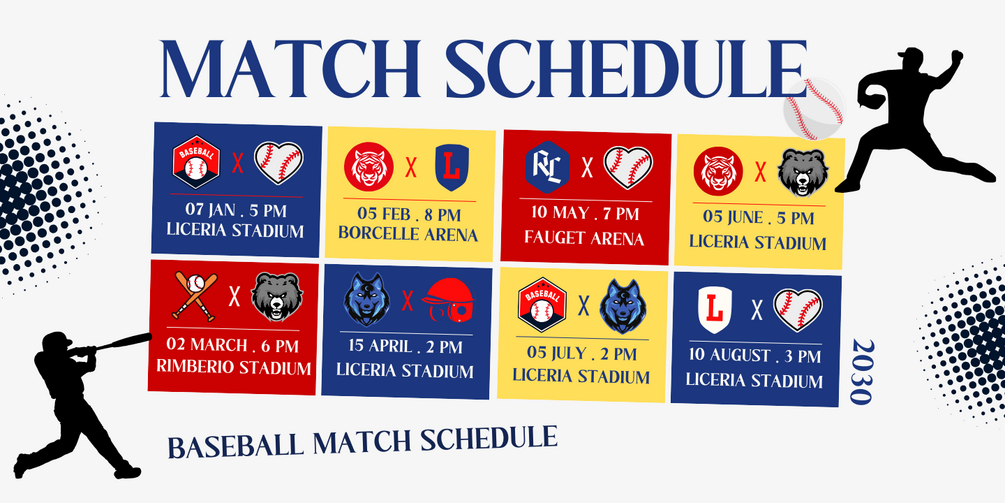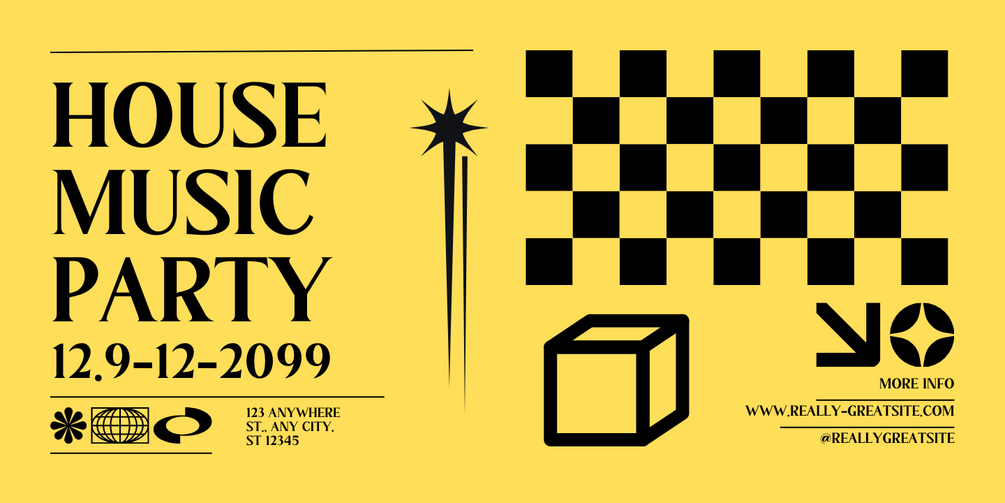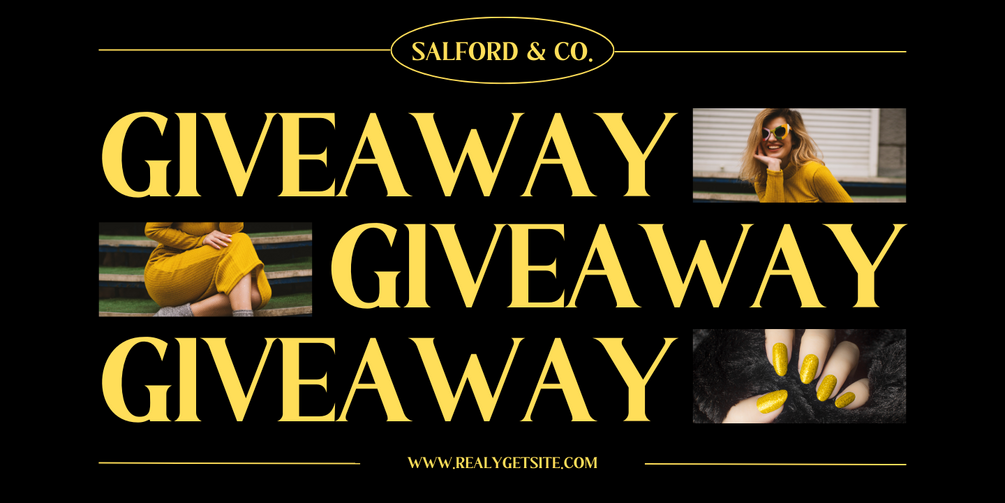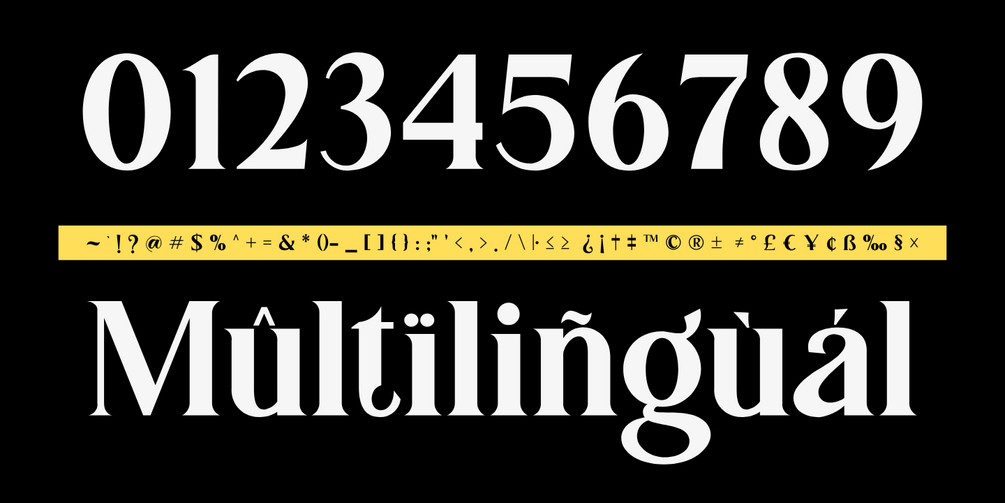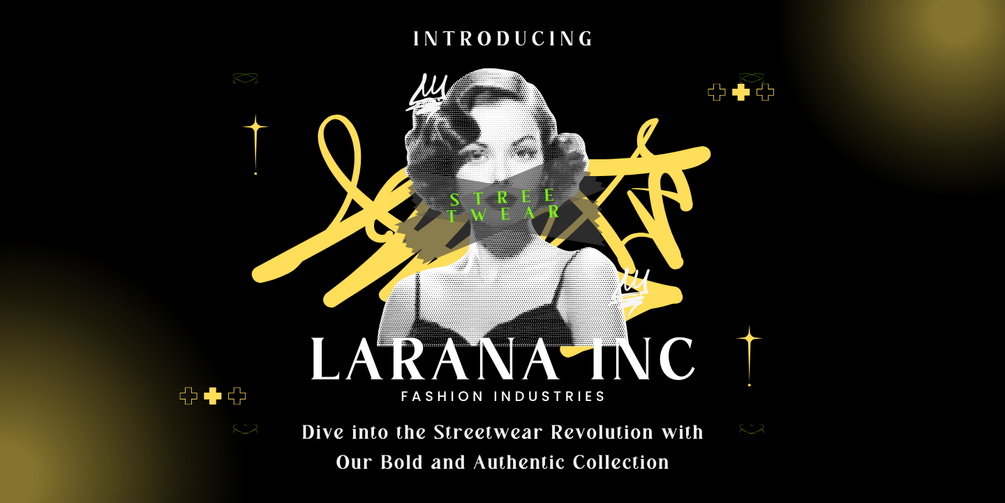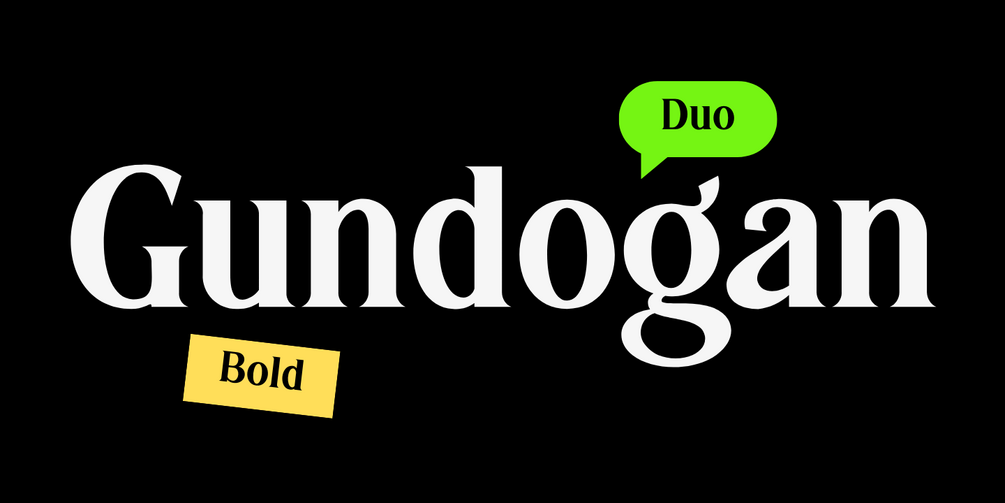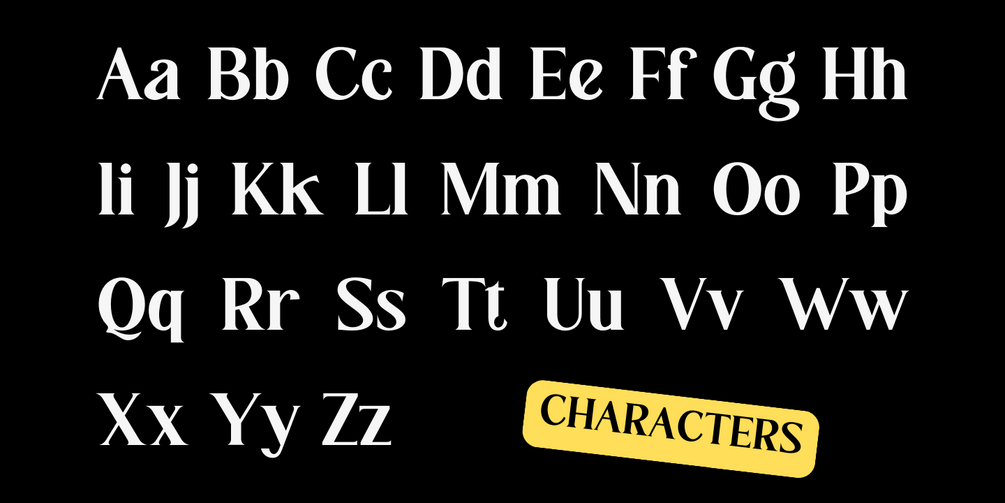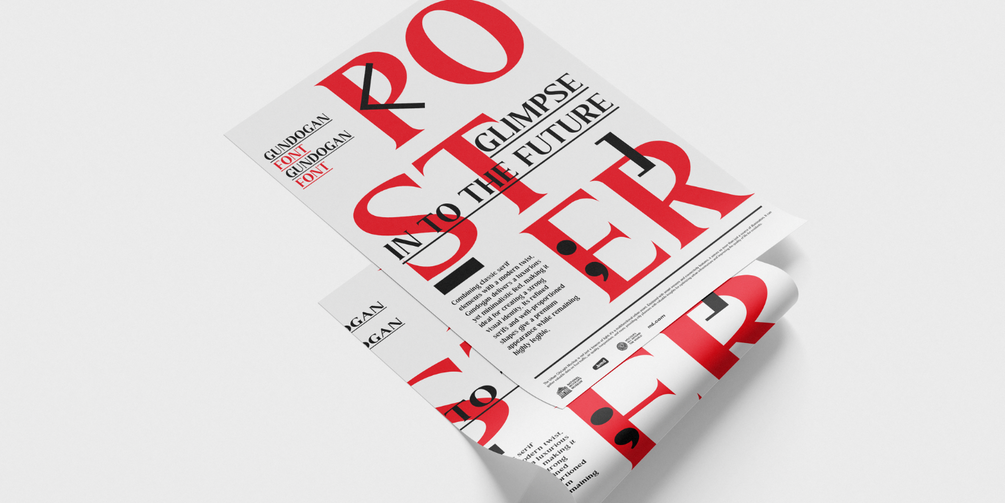
Gundogan
Make a bold statement with Gundogan, the modern serif font that exudes strength, elegance, and sophistication.
Gundogan is designed to bring a refined, luxurious touch to any project. With its bold, sharp letterforms and modern yet classic style, this font is perfect for creating a strong visual identity across a wide range of design needs.
From logos and branding to editorial layouts and product packaging, Gundogan commands attention and enhances your designs with a bold, professional look. Its carefully crafted serifs and well-proportioned shapes provide both elegance and legibility, ensuring that your designs remain impactful and easy to read.
✨ Bold and modern serif with a luxurious, minimalistic feel
✨ Perfect for logos, branding, posters, book covers, and editorial designs
✨ Combines classic elegance with contemporary sharpness
✨ Refined, well-balanced letterforms for a premium look and feel
✨ Highly legible and versatile for any design project
💼 Elevate your projects with the timeless, strong, and luxurious presence of Gundogan.
✔ Multilingual Support